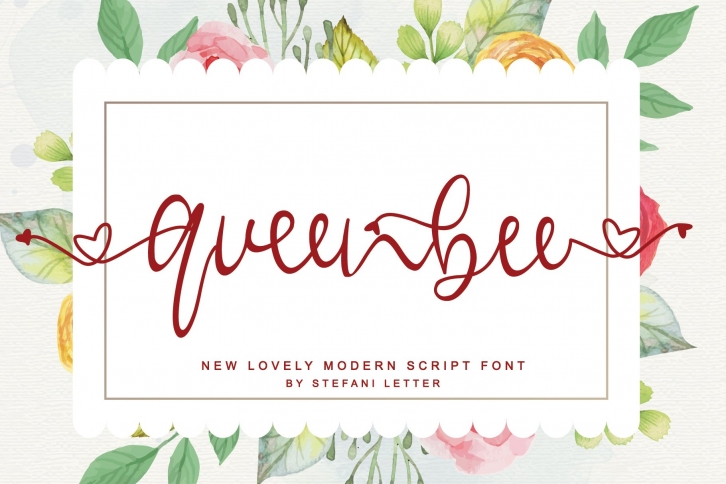
Queenbee FONT Download
queenbee is a gorgeous font that was realeased on April 12, 2020. The font can be used in many style contexts and design environments. Perfect for invitations, magazines, websites, logos, and more! It was designed by Stefani Letter and the file size is 20.45 MB. Thanks for checking out this font!